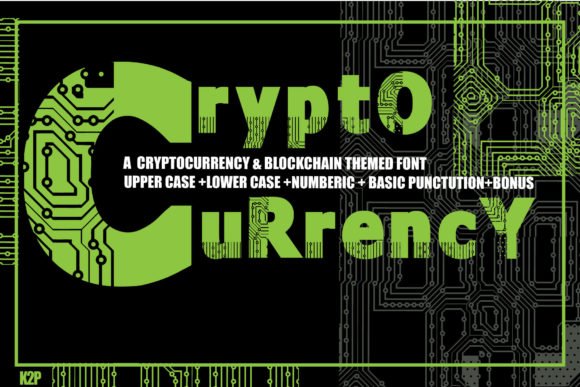
Crafting a Bold Visual Identity with Cryptocurrency Font
Have you ever stared at a blank canvas, waiting for inspiration to strike? For designers, these moments can be both exhilarating and intimidating. But what if you had the perfect tool to kick-start your creative process? Enter Cryptocurrency Font, a thick-lettered and uniquely designed display font that’s about to revolutionize your design projects.
Designed to make a statement, Cryptocurrency Font is more than just a font – it’s a visual representation of innovation and progress. Its bold and futuristic style is perfectly suited for any project, from digital art to branding and packaging. By incorporating Cryptocurrency Font into your designs, you’ll add a touch of sophistication and modernity that’s sure to captivate your audience.
Cryptocurrency Font Key Features
- Unique Characteristics: The font features a distinctive, futuristic design with a focus on clean lines, geometric shapes, and a modern aesthetic, making it perfect for use in cryptocurrency, fintech, and tech-related branding and design.
Cryptocurrency Font Review
Overall, I’m impressed with the Cryptocurrency Font. It’s a modern, sleek font that effectively conveys a sense of innovation and technology. ✨ Here are some of its strengths:
- Clean design**: The font is easy to read, even at small font sizes.
- Highly versatile**: The font works well for both digital and print applications.
- Well-suited for tech brands**: The font’s futuristic feel makes it perfect for cryptocurrency and fintech companies.
- Limited character set**: The font only includes basic characters, making it less suitable for languages that require a wider character set.
- No bold or italic variants**: While the font is clean and modern, it can feel a bit one-dimensional without bold or italic versions.
Overall, the Cryptocurrency Font is a solid choice for tech-savvy brands looking to make a statement. While it may not be perfect, its strengths outweigh its limitations, making it a worthwhile investment for designers and businesses alike.
The Cryptocurrency Font is ideal for:
1. Creating cryptocurrency-related logos and branding.
2. Designing cryptocurrency-themed presentations and documents.
3. Adding a touch of professionalism to cryptocurrency-related websites and social media.